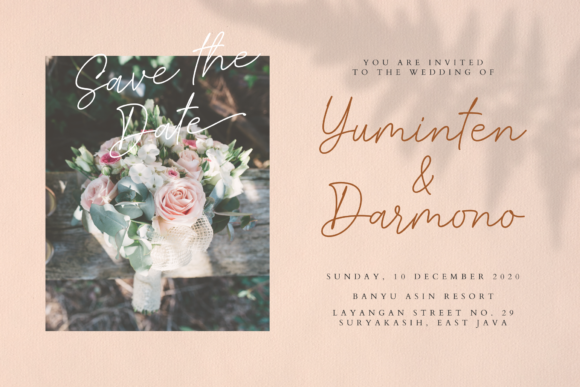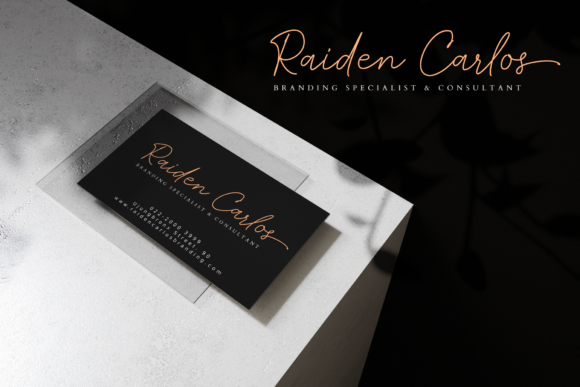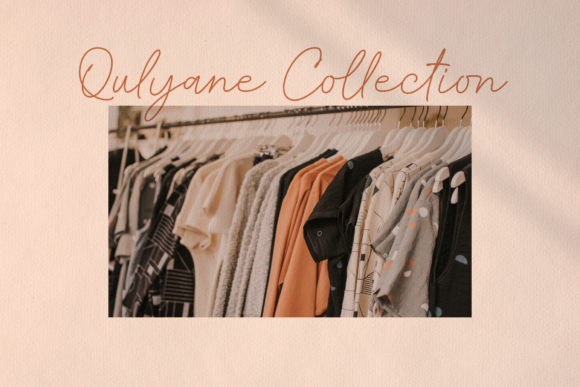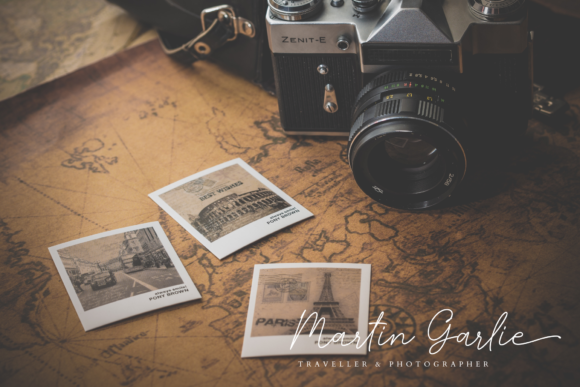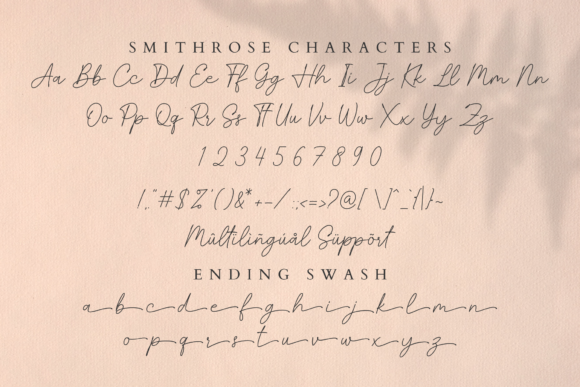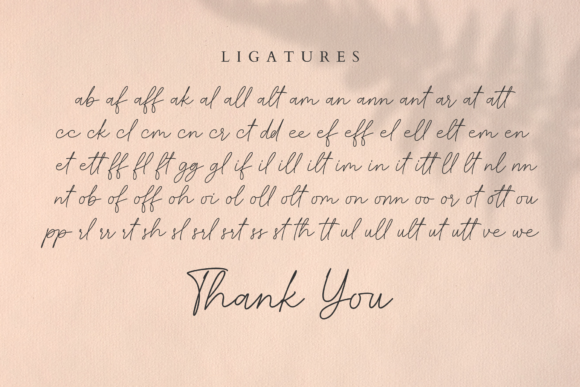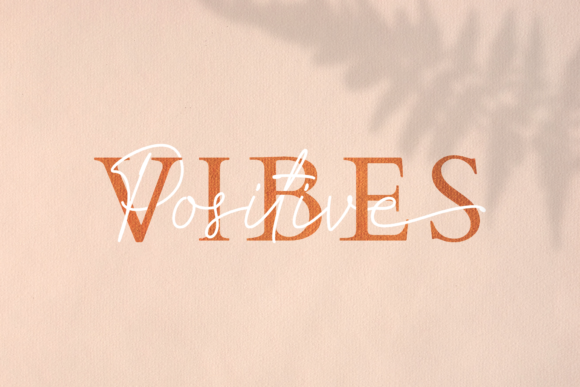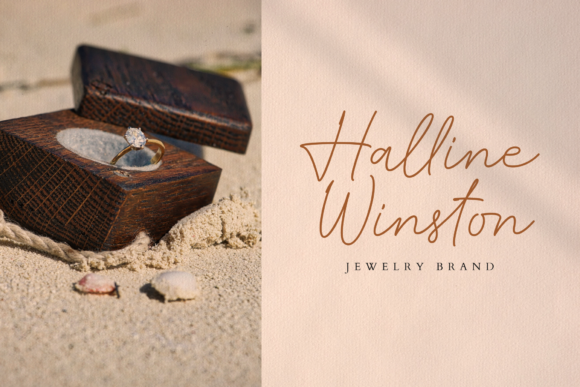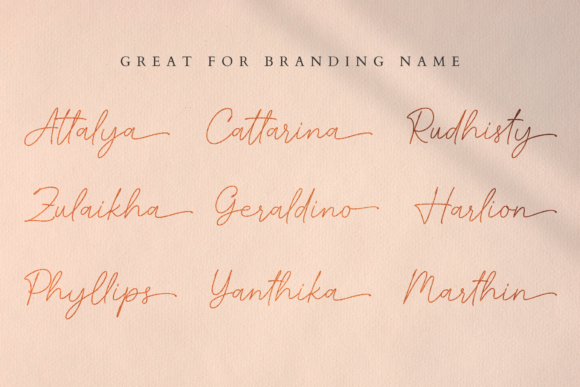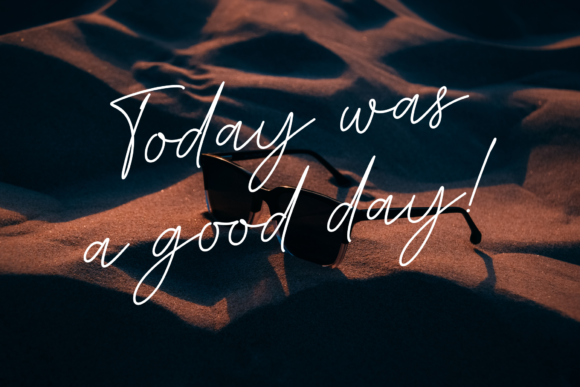
Smithrose Font
About Smithrose Font
Smithrose is a modern script inspired by monoline signature letters. It feels very contemporary and fresh, and comes with gorgeous ligatures and ending swashes.